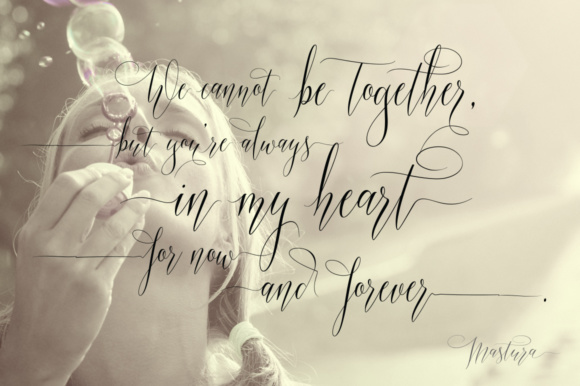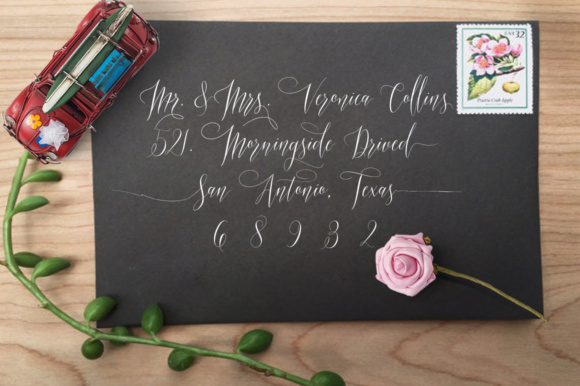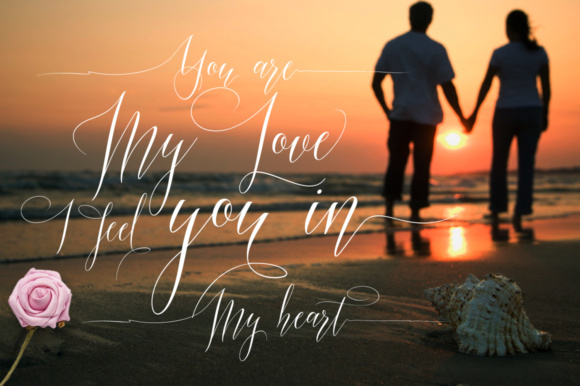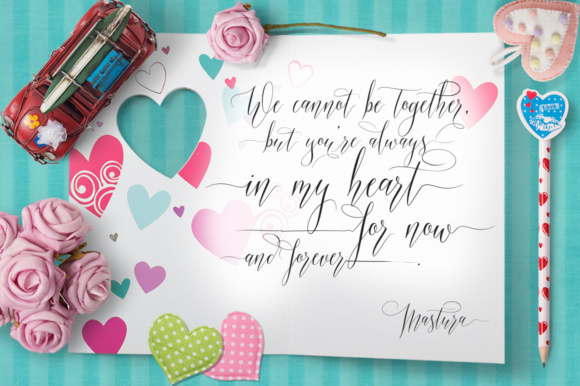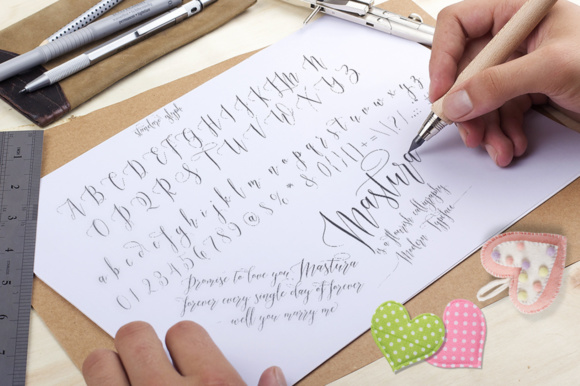
Introduction to Mastura Font
As a designer, have you ever found yourself stuck in a creative rut, searching for the perfect font to elevate your project? You’re not alone. The quest for the perfect design resource can be a daunting task, especially when you’re working on a high-stakes creative project. That’s why we’re excited to introduce you to the stunning Mastura Font – a beautifully flourished script font that’s sure to take your designs to the next level.
With its smooth lines, pointed-edged pull pens, and stunning blend of classic and modern elegance, the Mastura Font is the perfect addition to any design arsenal. Whether you’re working on a free download project or a paid design gig, this versatile font is sure to impress. And the best part? It’s available for download with a transparent background, making it easy to integrate into any design.
Mastura Font
- Unique characteristics include elegant script and cursive styles, perfect for invitations, logos, and other creative applications
Honest Review: Mastura Font
I recently stumbled upon the Mastura Font while searching for a high-quality design resource for a creative project. I was excited to try it out and see if it lived up to my expectations.
- The Mastura Font is incredibly versatile and can be used for a wide range of creative projects, from branding to typography.
- The font’s design is elegant and sophisticated, with a unique flair that sets it apart from more generic fonts.
Any limitations ⚠️
- The Mastura Font may not be suitable for projects that require a bold or dramatic font style.
Overall, I was impressed with the Mastura Font and would definitely recommend it to designers looking for a high-quality design resource. The font’s versatility, elegant design, and free download make it an excellent option for any creative project.
Mastura Font
The Mastura Font is a high-quality design resource ideal for creative projects. It offers a unique and elegant style, making it perfect for various applications.
Tips for Getting the Most Out of Mastura Font
Use the Mastura Font in combination with other design elements to create a cohesive look. Experiment with different font sizes, colors, and styles to achieve the desired effect.
The Mastura Font is perfect for various creative projects, including:
– Branding and logos
– Graphics and illustrations
– Text overlays and quotes
– Presentations and reports